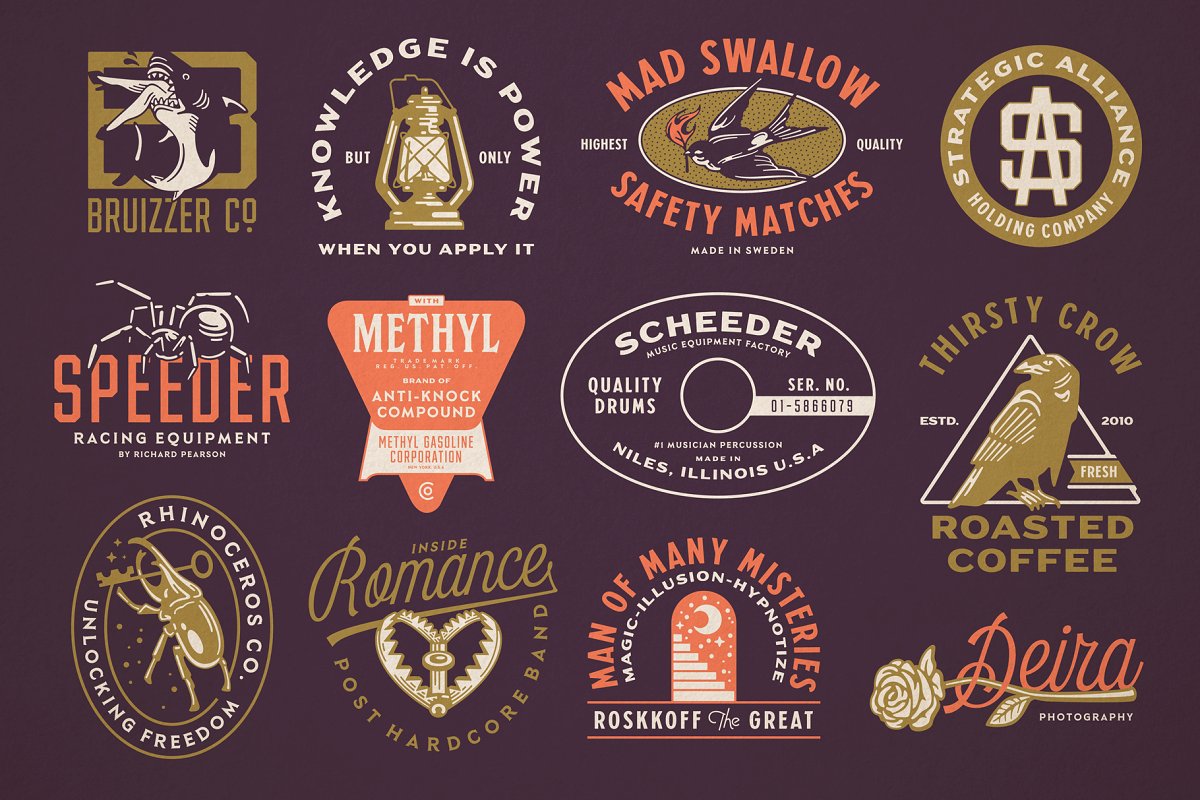
About the SS Hilborn Bundle Font
S&S HILBORN FONT BUNDLES&S Hilborn font bundle is made in response to today’s graphic design trend, Inspired by classic labels, vintage packaging, and old sign painting, This bundle will add a touch of worldly knowledge to your artwork, also go hand in hand to create logos, branding, ad’s, signage and more!So much inspiration as you access it, What are you waiting for, the best price and best quality we give you with pride
There’s also +100 hand drawn llustration to sit perfectly with the letterform, Don’t hesitate!!! All benefits you will feel when you start to create works with S&S Hilborn, borrowed from classic labels, vintage packaging, and old sign painting, would bring an authentic and unique style to any artwork